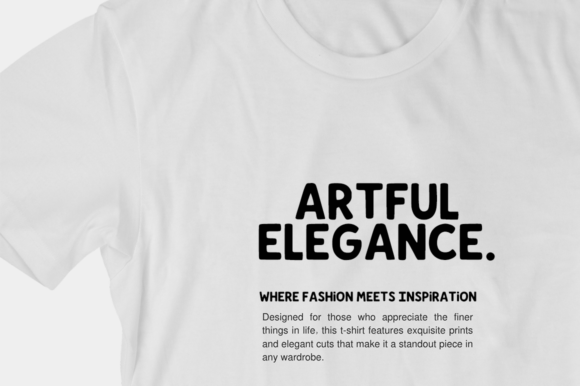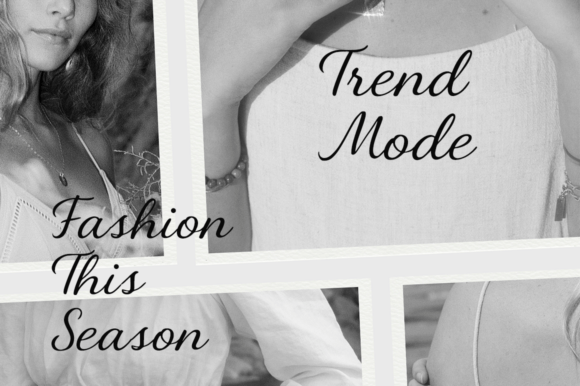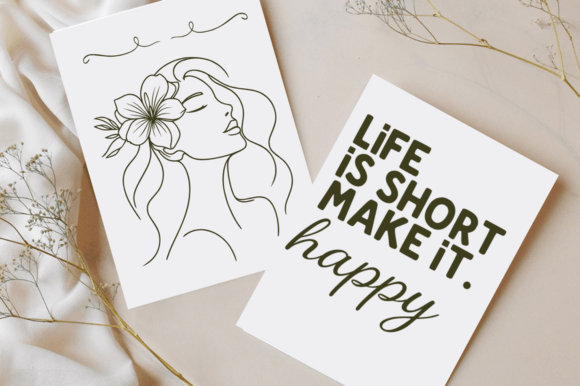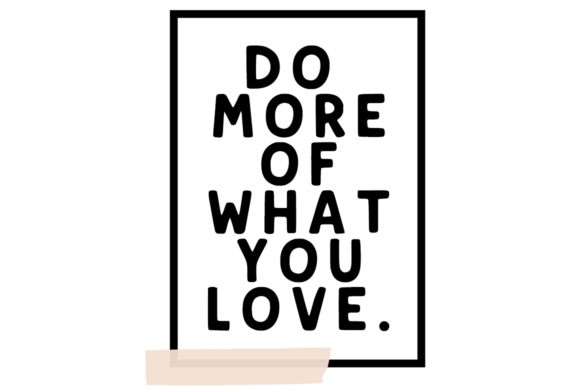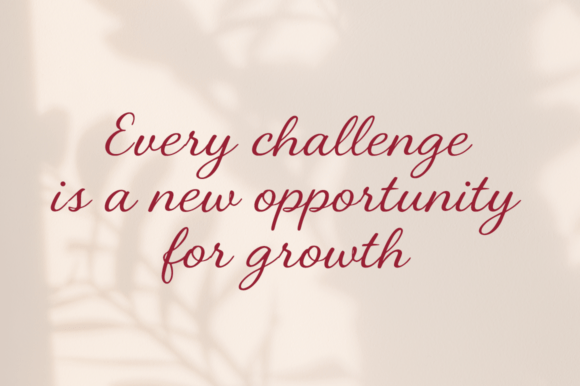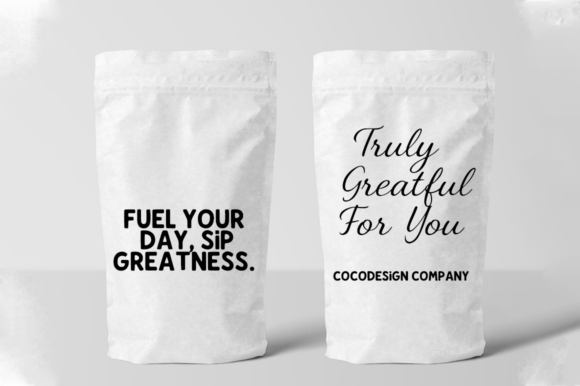
I still remember the frustration of working on a project, hours spent searching for the ideal font, only to end up with a mediocre choice that didn’t quite capture the essence of the design. It was as if I was trying to find a needle in a haystack, with each font being a slightly imperfect fit. But then, I stumbled upon the Better With You font duo, and it was a game-changer.
Introducing Better With You: A Captivating Duo
Better With You is a font bundle that combines the best of both worlds: a Sans Serif Handwriting style and a Script Handwriting style. This dynamic duo offers a unique blend of comfort, approachability, and sophistication, making it perfect for designers, crafters, and creative hobbyists.
Sans Serif Handwriting: Calm, Uncluttered, and Cheery
The Sans Serif Handwriting style exudes a calm, uncluttered, and cheery aura, making it ideal for headlines, logos, and designs that need a striking yet approachable personality. Its bold uppercase letters create a balance between confident professionalism and inviting cheerfulness.
Script Handwriting: Feminine, Chic, and Elegant
The Script Handwriting style boasts graceful, authentic strokes that mimic real handwriting, lending a feminine, chic elegance to any design. This script is perfect for highlighting personal expressions in signatures, infusing charm in quotes, adding personality to invitations, or evoking creativity in artistic endeavors.
- 💫 Unique blend of comfort and sophistication
- ✅ Highly versatile for various design projects
- 🎉 Easy to read and understand
- 💬 Excellent for headlines, logos, and quotes
The Not-So-Good: ⚠️
- 🤔 Limited use for body text due to its decorative nature
- ⚠️ May not work well for very small font sizes
The Designer Inspiration Behind Better With You
The Better With You font duo was inspired by the desire to create a font that embodies the perfect balance between comfort and sophistication. The designer aimed to craft a font that would make designs feel more approachable, yet still convey a sense of professionalism and elegance.
| What makes Better With You unique? | Better With You offers a unique blend of comfort and sophistication, making it perfect for designs that need a striking yet approachable personality. |
| Is Better With You suitable for body text? | While Better With You is primarily designed for headlines and decorative text, it can be used for short paragraphs or body text in certain design contexts. |